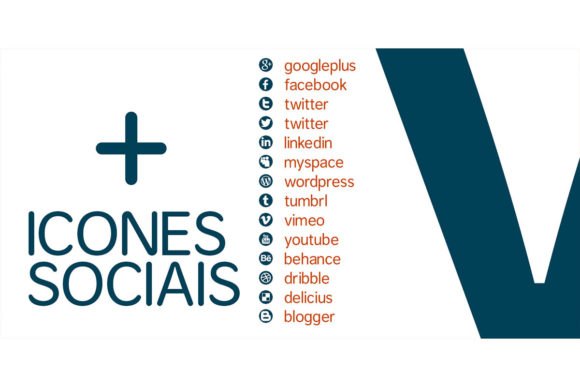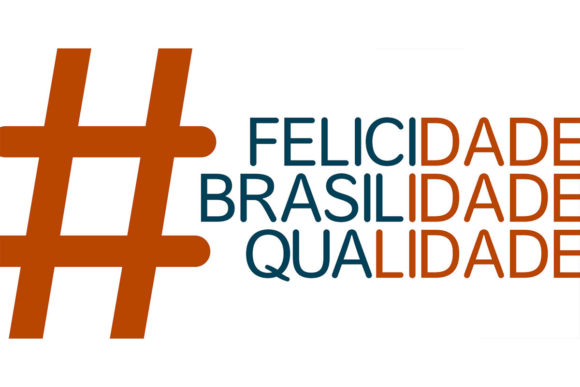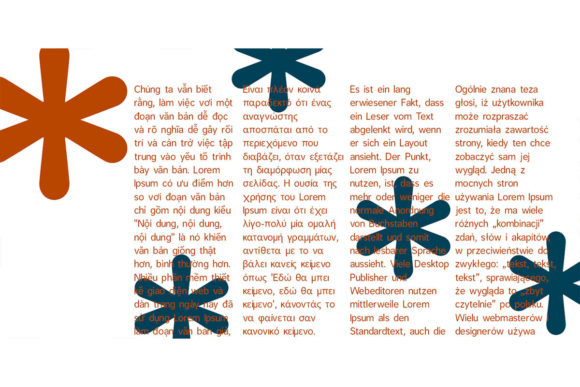
Discovering the Perfect Font for Your Next Creative Project
Remember that moment when you stared at a blank page, trying to come up with the perfect design concept? The blank slate was staring back at you, waiting for your creative spark to ignite. You know that feeling when everything falls into place, and your design vision starts to take shape?
For designers, finding the right font can be the key to unlocking that perfect creative moment. This is where Anevena Rounded Font comes in – a versatile and adaptable sans serif font designed for a wide range of applications. From book texts to business reports, this font is the perfect companion for your next project. Its clean lines and rounded edges make it an ideal choice for designers looking to create visually appealing designs that engage their audience.
Anevena Rounded Font is more than just a font – it’s a valuable tool that can elevate your design to the next level. Whether you’re working on a magazine, newspaper, poster, or advertisement, this font is sure to deliver professional results.
Anevena Rounded Font Key Features
- Rounded and Geometric Design: Anevena Rounded Font features a unique blend of rounded and geometric shapes, creating a visually appealing and modern aesthetic.
- Multi-Lingual Support: The font includes support for multiple languages, including Latin, Cyrillic, and Greek alphabets, making it a versatile choice for global branding and design projects.
- High-Quality Typography: Anevena Rounded Font is designed with high-quality typography in mind, ensuring clear readability and a professional look in various applications.
- Customizable and Versatile: The font’s rounded and geometric design elements make it highly customizable, allowing designers to create unique and creative visual identities.
Anevena Rounded Font Review
I recently had the chance to work with Anevena Rounded Font, and I must say it’s been an interesting experience. ✨ The font’s rounded edges and gentle curves do make it a great choice for designs that require a friendly, approachable feel. It’s also quite versatile, working well for both headings and body text.
One of the things I like about Anevena Rounded Font is its legibility, even at smaller font sizes. It’s easy to read and understand, making it a great choice for applications where text needs to be consumed quickly.
Here are some things I like about Anevena Rounded Font:
- ✨ Friendly, approachable feel
- ✨ Versatile and suitable for both headings and body text
- ✨ Good legibility at smaller font sizes
- ⚠️ The font may not be as suitable for designs that require a more formal or professional tone
- ⚠️ It may not be the best choice for designs where a bold, attention-grabbing font is required
Overall, I think Anevena Rounded Font is a solid choice for designs that require a friendly, approachable feel. While it may not be the best choice for every project, it’s definitely worth considering when the right design requires it.
Anevena Rounded Font: A Practical Application Guide
Getting Started with Anevena Rounded Font
Tips for Getting the Most Out of Anevena Rounded Font
To get the most out of Anevena Rounded Font, use it for headings and titles where you want to add a touch of elegance and sophistication. You can also use it for body text where you want to create a clean and modern look.
Anevena Rounded Font is perfect for:
– Digital products and software
– Websites and web applications
– Print materials such as brochures and business cards